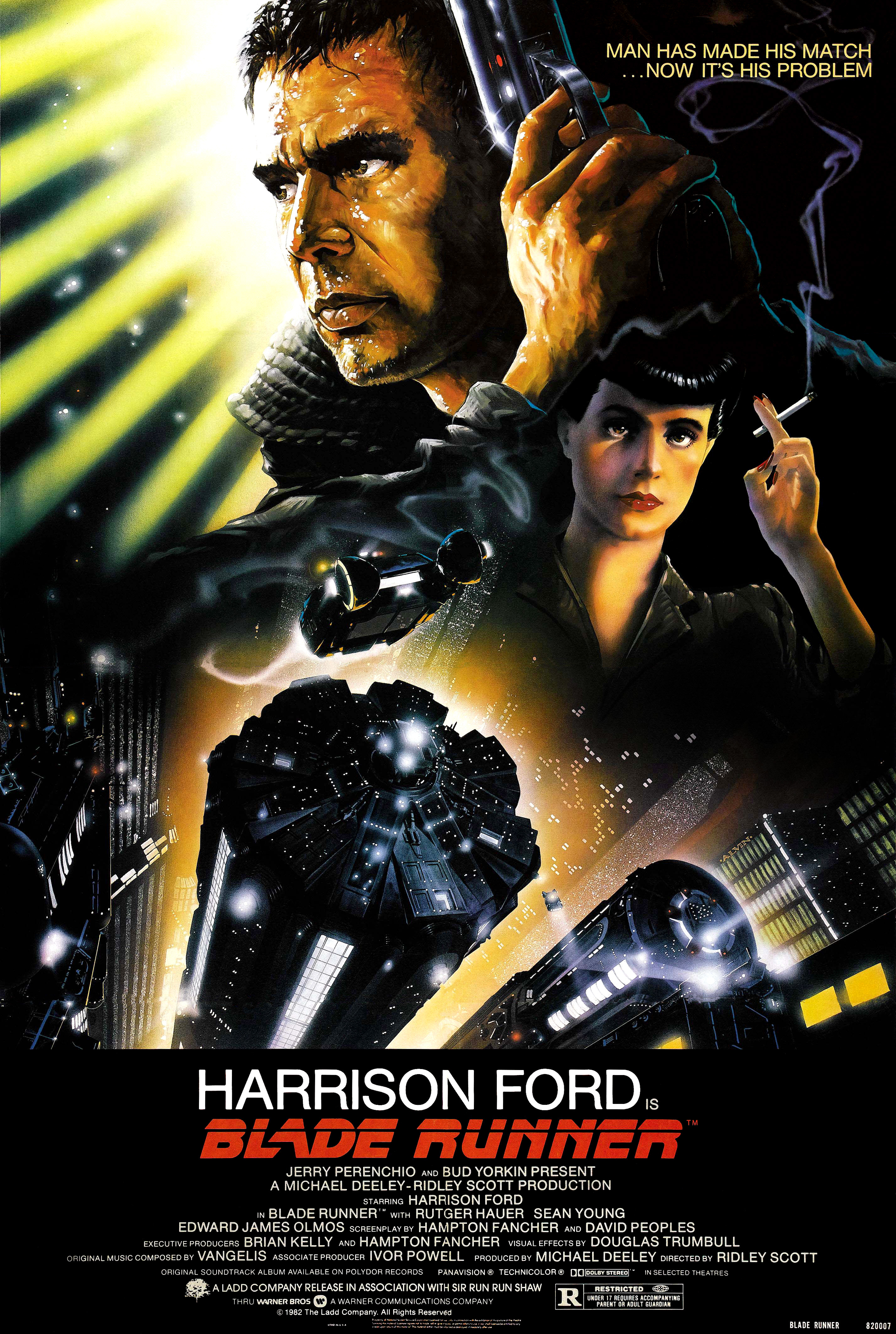
Blade Runner Font
Fonts in UseBlade Runner is a 1982 science fiction film directed by Ridley Scott, which explores themes of humanity, identity, and artificial intelligence through a dystopian future setting. The film follows Rick Deckard, a "blade runner," who is tasked with hunting down and retiring rogue bioengineered beings known as replicants, leading to ethical questions and thought-provoking encounters.
The Blade Runner font was custom made but there's a replica available called Blade Runner Movie Font by Phil Steinschneider. The font is licensed as 100% free.